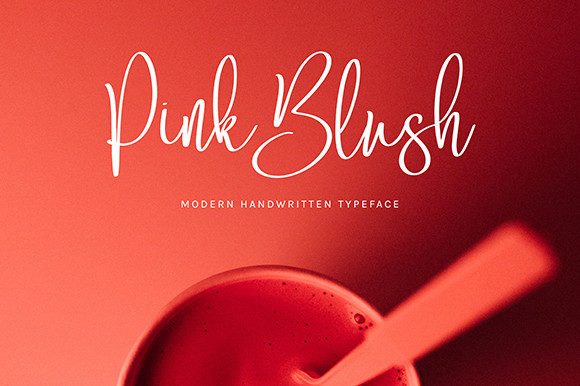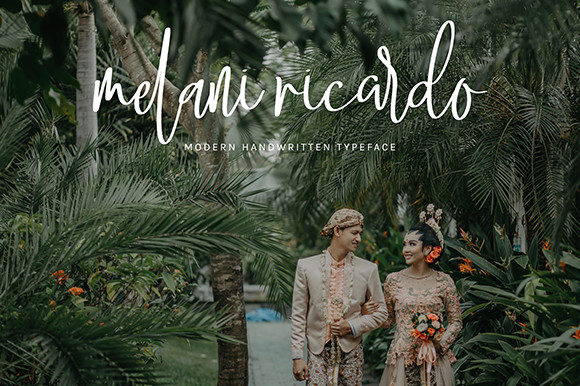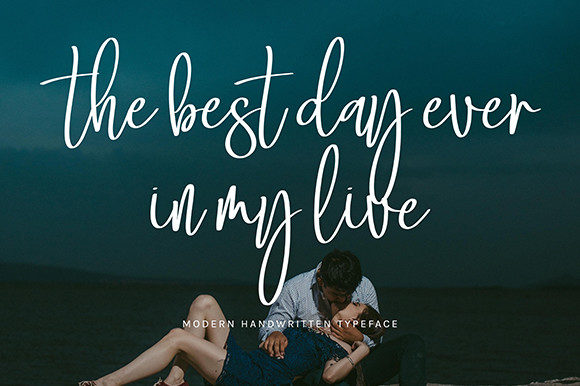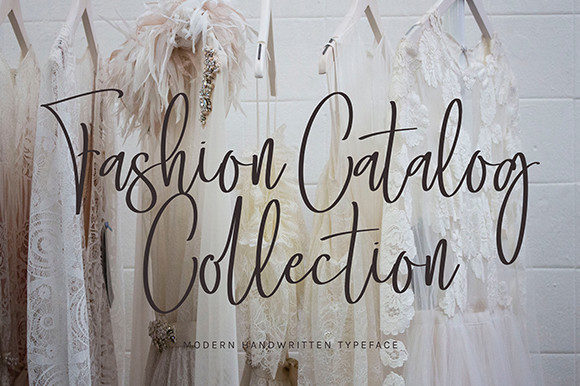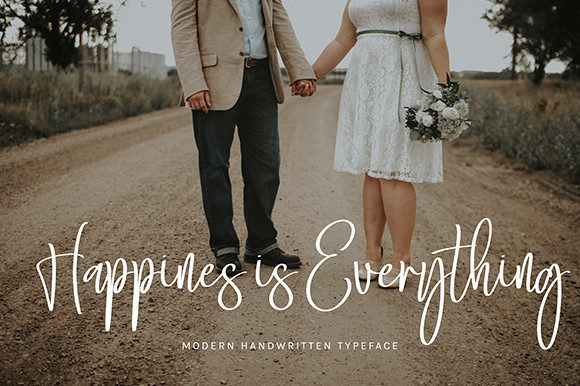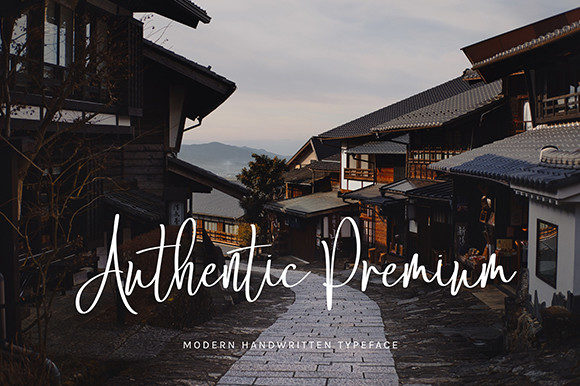
When Words Become Art: Unveiling the Beauty of Amerita Signature Font
Have you ever stumbled upon a project where the right typography could make all the difference? Maybe it’s a wedding invitation, a love letter, or a social media post that screams romance. Whatever the case, you’re probably searching for that perfect font that will elevate your design and capture the essence of the moment.
Enter the Amerita Signature Font – a stylish and fashionable script font that exudes elegance and sophistication. Designed to add a touch of romance to your projects, this font is perfect for designers who crave a unique and memorable look. With its PUA encoding, you’ll have access to all the glyphs and swashes, allowing you to get creative and experiment with different designs.
Whether you’re a seasoned designer or a creative enthusiast, the Amerita Signature Font is a valuable addition to your toolkit. Its versatility and charm make it an ideal choice for a wide range of projects, from editorial design to social media graphics.
Amerita Signature Font Key Features
- Font Family: Amerita Signature Font is a unique, hand-drawn script font designed for personal and professional use.
- Character Set: Includes 250+ glyphs, including uppercase and lowercase letters, numbers, punctuation, and special characters, making it suitable for a wide range of applications.
- Unique Characteristics: Features a distinctive, elegant, and cursive design with a mix of swashes, flourishes, and connecting strokes, perfect for adding a touch of sophistication and personality to your designs.
Amerita Signature Font Review
I recently had the chance to work with the Amerita Signature Font, and I must say it’s a unique and intriguing addition to any design project. ✨ Here are some aspects that caught my attention:
- Uniqueness**: Amerita Signature Font offers a distinct and recognizable style that sets it apart from other fonts. It’s perfect for designers looking to add a touch of elegance and sophistication to their work.
- Legibility**: The font is highly legible, making it suitable for a wide range of applications, from body text to headings. The clear typography ensures that the content remains easy to read, even at smaller font sizes.
- Style versatility**: Amerita Signature Font can be styled in various ways, from bold and dramatic to subtle and refined. This flexibility makes it an excellent choice for designers working on diverse projects.
- Compatibility issues**: I encountered some compatibility issues with certain design software and operating systems. This may require some troubleshooting and adjustment to ensure smooth usage.
- Limited language support**: Amerita Signature Font primarily supports Latin-based languages, which may limit its use for non-English projects. This could be a drawback for designers working on international projects.
Overall, I’m impressed with the Amerita Signature Font’s unique style and versatility. While it may have some limitations, it’s a valuable addition to any designer’s toolkit. With some tweaking and experimentation, I’m confident that this font can help designers create stunning and memorable designs. ⚠️
Getting the Most Out of the Amerita Signature Font
To get the most out of the Amerita Signature Font, try the following tips:
1. Use it for headings and titles to create a consistent brand identity.
2. Experiment with different font sizes and styles to add visual interest.